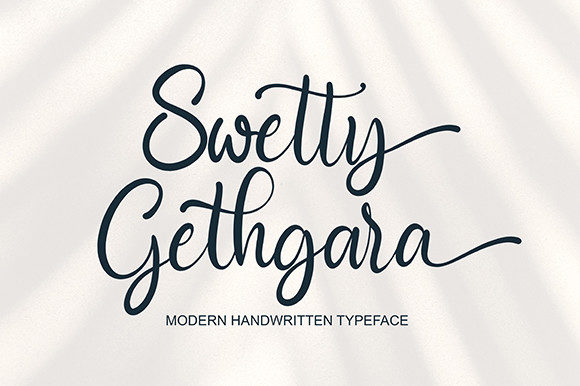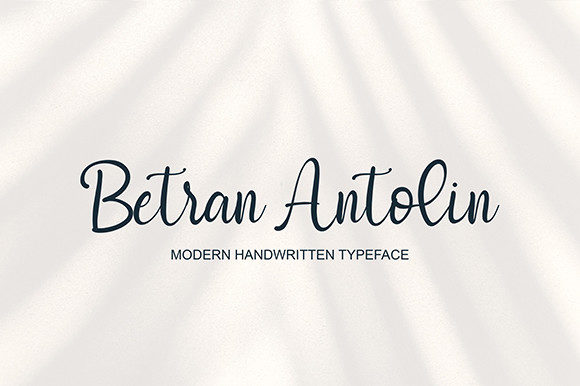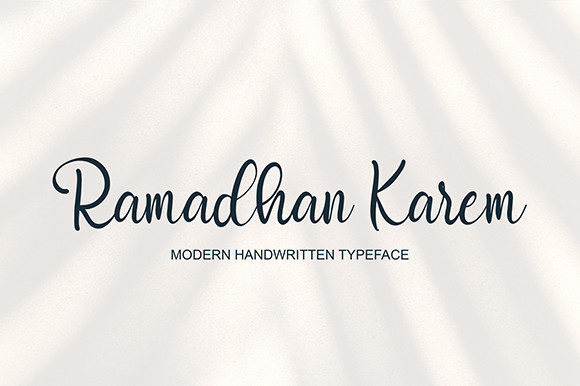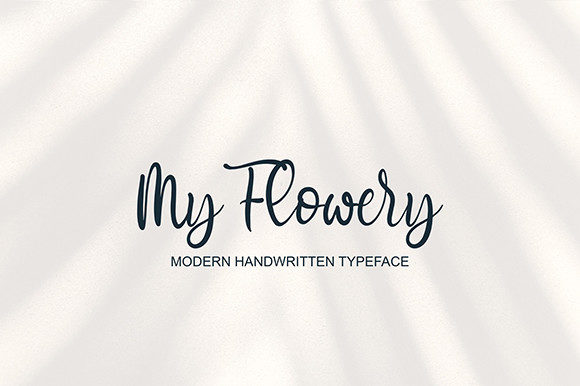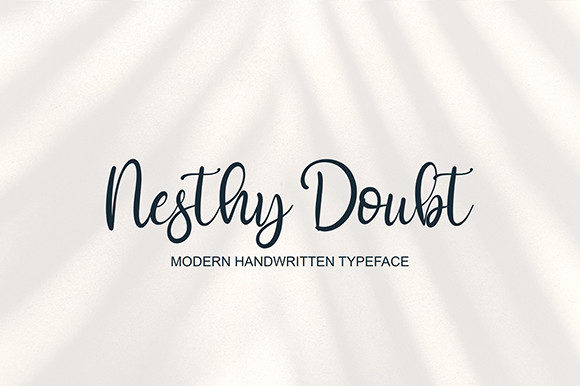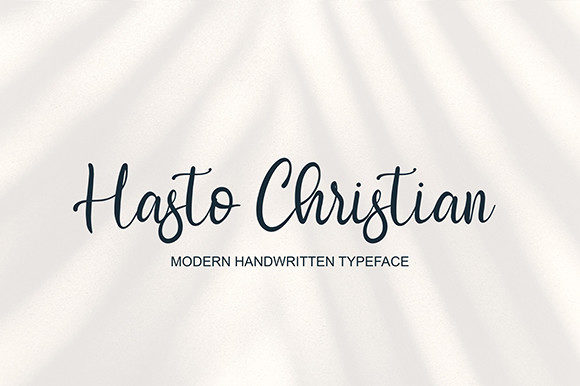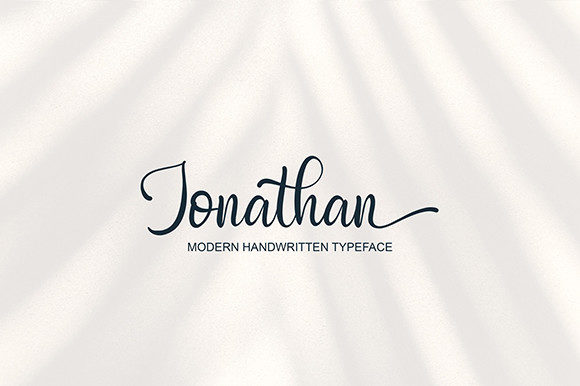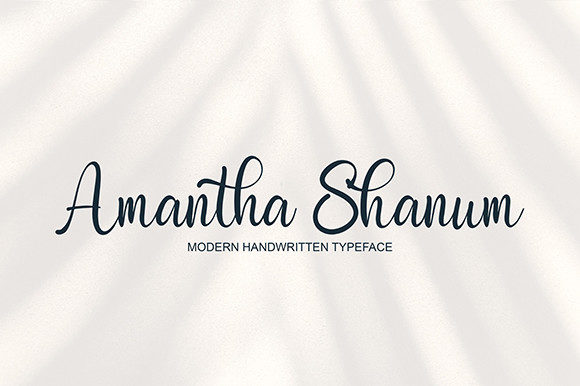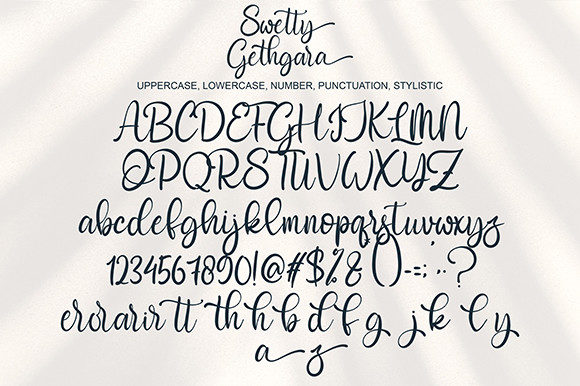
Swetty Gethgara Font
About Swetty Gethgara Font
Swetty Gethgara introduces a new and unique style, making it an ideal choice for a variety of projects such as quotes, logos, blog headers, posters, branding, letters, invitations, stationery, and more. This font’s versatility allows it to seamlessly adapt to different design contexts, offering a fresh and distinctive look to your creative endeavors.
The new style of Swetty Gethgara adds a contemporary and eye-catching element to your text, making it suitable for modern and trendy design projects. Its adaptability ensures that it can enhance the visual appeal of various applications.
In quotes and blog headers, Swetty Gethgara brings a fresh and stylish appearance, making your text stand out with a touch of uniqueness. The font’s new style contributes to creating engaging and visually appealing content.
For logos and branding, Swetty Gethgara offers a memorable and distinct visual identity. Its unique style sets it apart, ensuring that your brand is perceived as both modern and creative.
In posters and invitations, Swetty Gethgara’s versatility shines, making it suitable for a wide range of themes and occasions. The font’s PUA encoding feature allows easy access to amazing glyphs and ligatures, facilitating creative customization.
Stationery and letter designs benefit from Swetty Gethgara’s new style, adding a contemporary and personalized touch to your written content. The font’s ability to convey a sense of freshness and uniqueness enhances the overall aesthetic.
The PUA encoding feature enhances accessibility, allowing users to access a variety of glyphs and ligatures with ease. This not only simplifies the design process but also opens up creative possibilities, enabling designers to customize and personalize their projects effortlessly.
In summary, Swetty Gethgara is not just a font; it’s a creative tool that adds a new and stylish flair to your projects. Its versatility, combined with PUA encoding, makes it an excellent choice for those seeking a font that effortlessly blends modernity with creativity across various design applications.